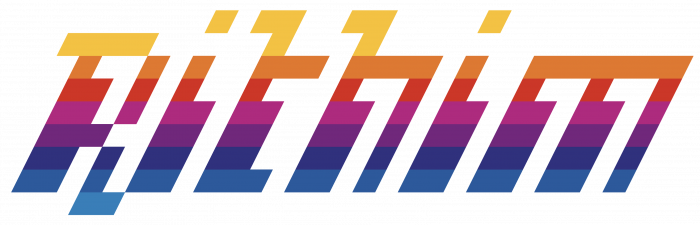
amazing color palette and great overall design! really like the font!
though the gap after "7" looks wider than the other ones..
Congratulations! FontStruct Staff have deemed your FontStruction worthy of special mention. “rithim” is now a Top Pick.
Three TPs in a row (you still make the difference in FS)! Triple congratulations, compañero! Beautiful selection of colours, btw.
wow
Great shapes and colors!
how do you get different colours on fonts?
I want this type of strands unlimited for my project.
How to do color?
is it called "rithim" because it looks like chrome music lab
Very excellent job, but I'm not sure with how the colors look like.
and @ssssssssBOOM(tnt)bri'(t)ishhomme(man)twothousandninehundred92 how dare you be rude at the amazing colors